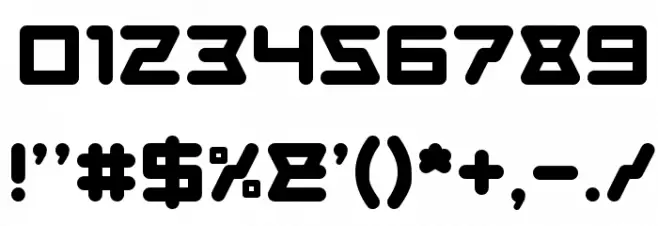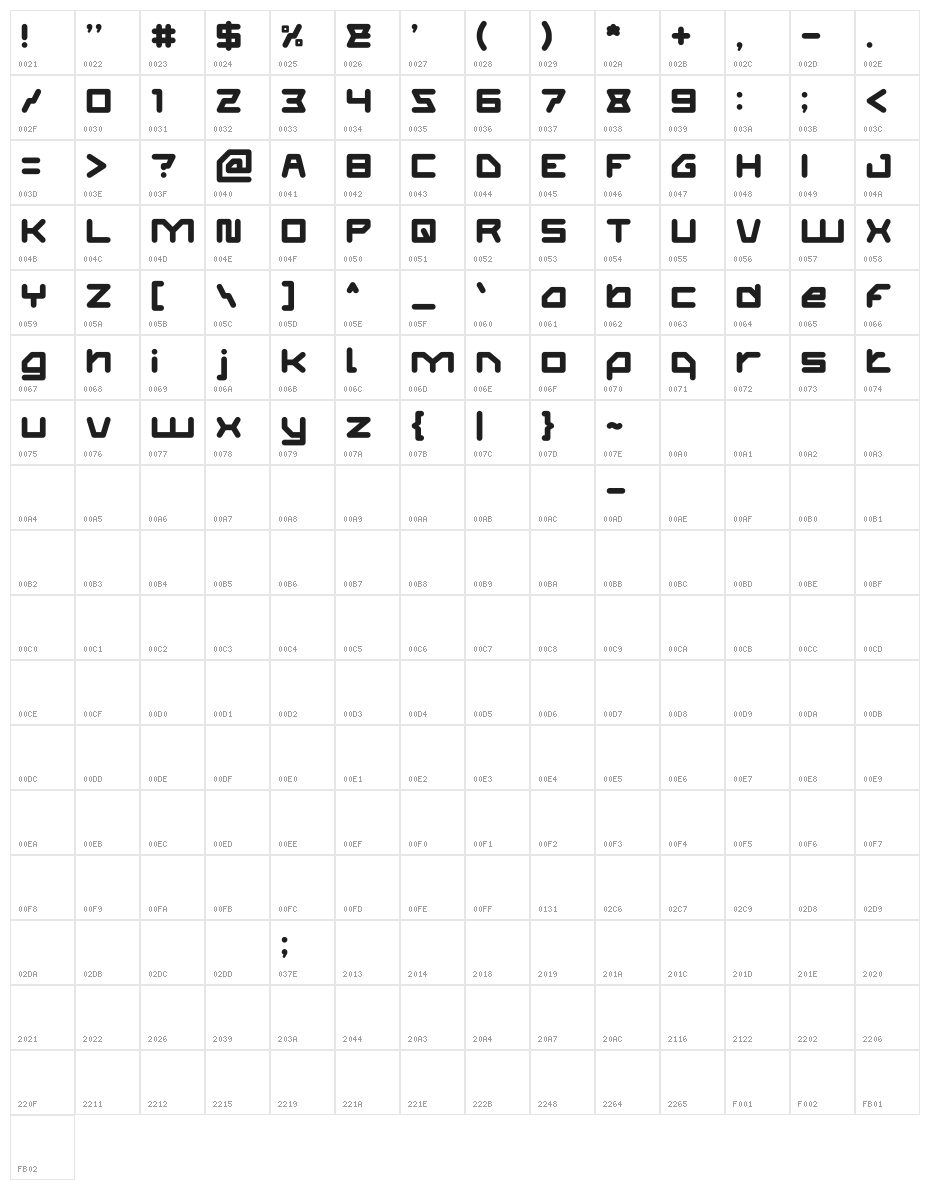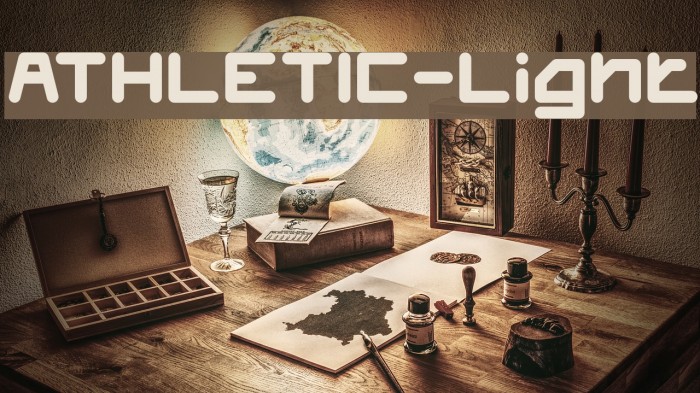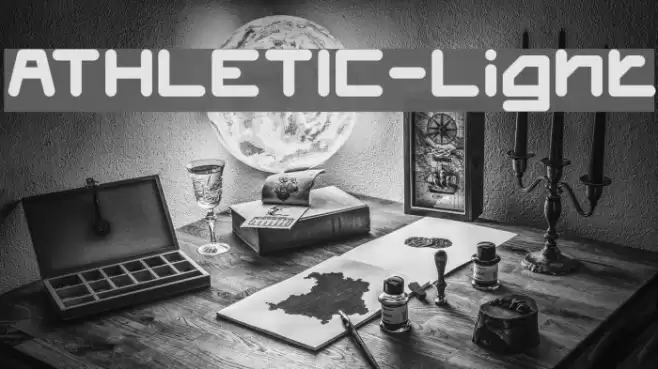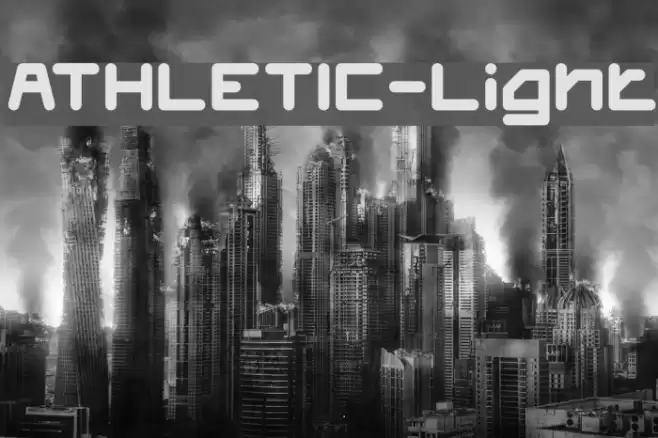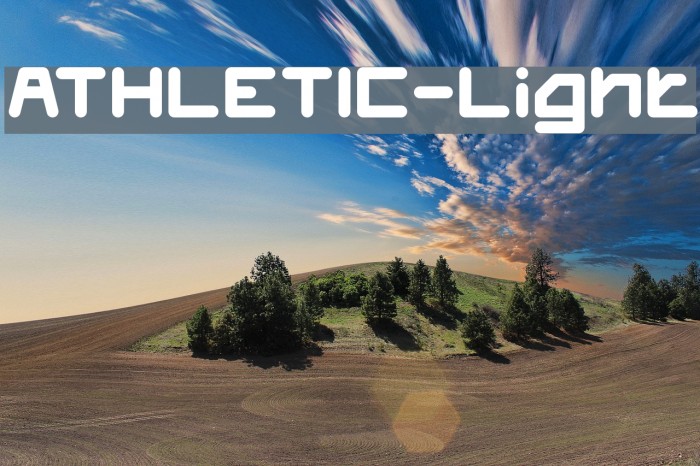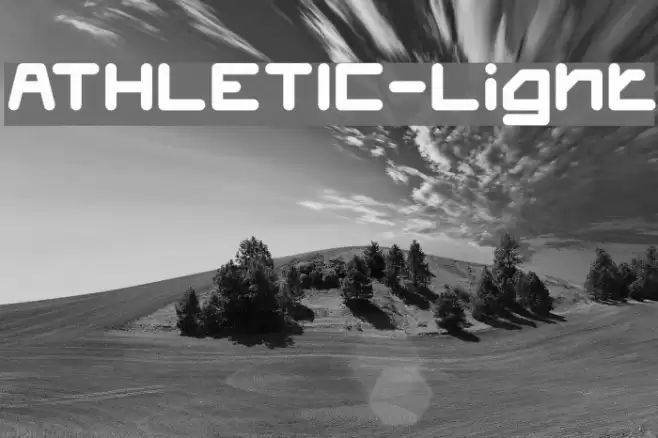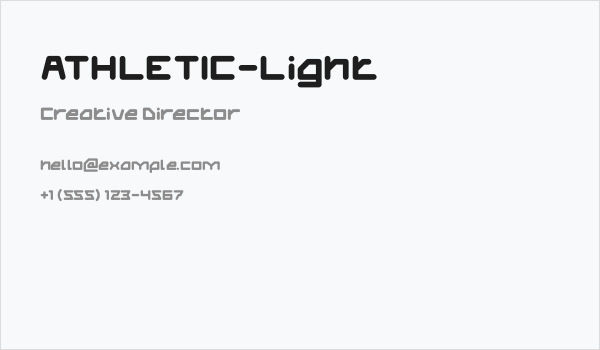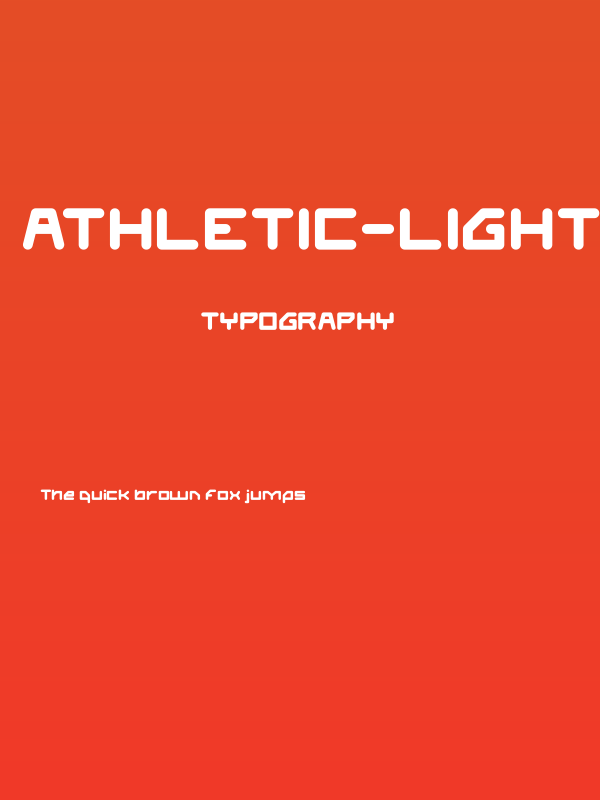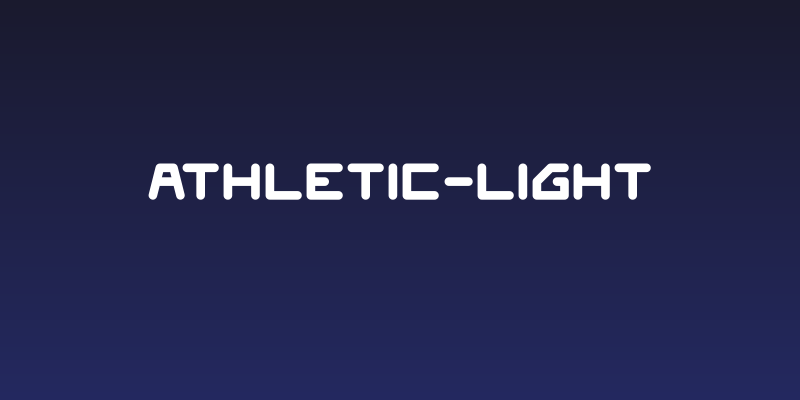
ATHLETIC-Light Font
ATHLETIC-Light Description
This font features a bold, geometric design with rounded edges, giving it a modern and sporty appearance. The characters are uniform in height and width, creating a cohesive and structured look. The uppercase and lowercase letters maintain a consistent style, with the lowercase letters slightly smaller in size. The numbers and special characters are designed to match the overall aesthetic, ensuring a seamless integration across different uses. The font's thick strokes and rounded corners make it highly legible and visually appealing, suitable for various design applications.
| Proposed Projects | Ideal for sports branding, athletic apparel, posters, and modern digital interfaces. |